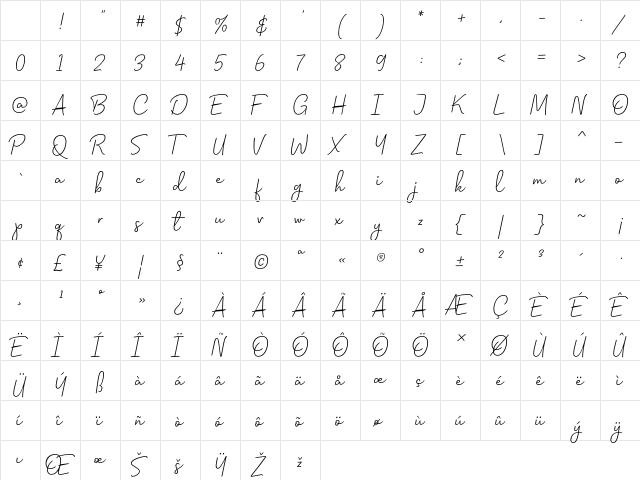
Complete Celliad Regular glyph index. Displaying only characters natively supported by Celliad Regular font.
Celliad is a composed and adaptable typeface that performs quietly and consistently across a wide range of design contexts.